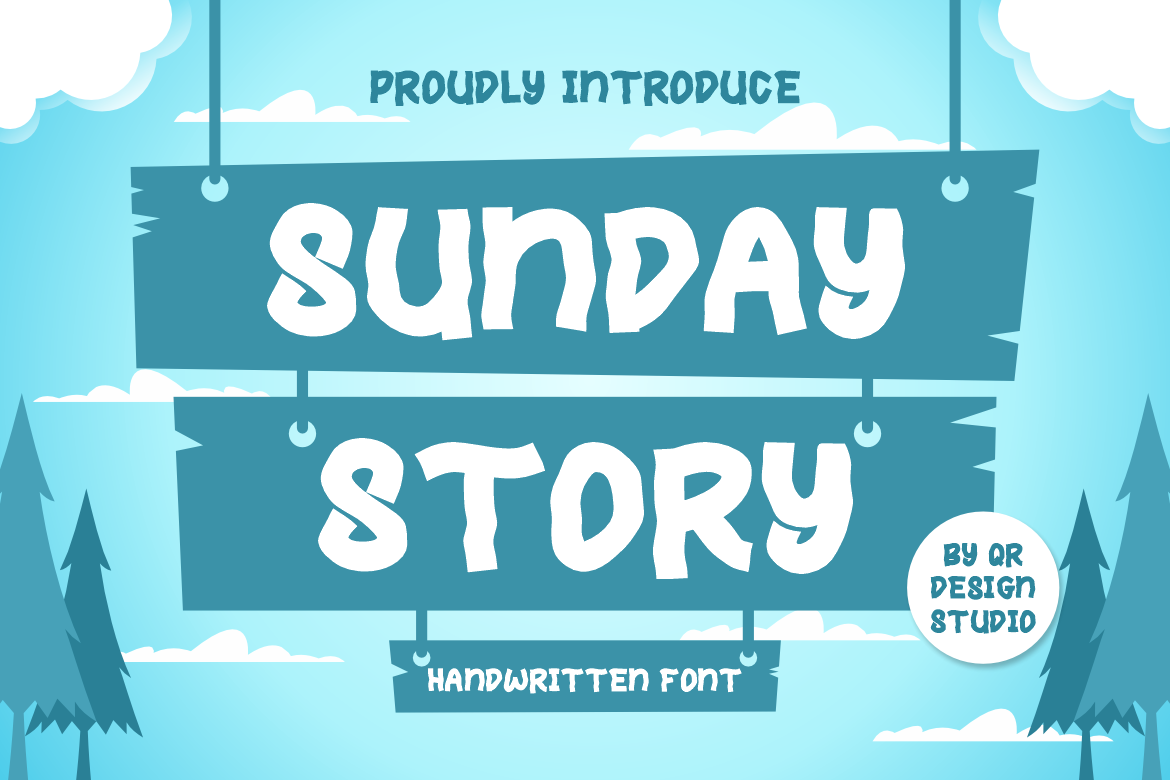
Sunday Story Font
Sunday Story is a bold and authentic display font. The font is suitable for any branding project like logo, cute, autumn, summer, kids, poster, thanksgiving and many more. Outstanding in a wide range of contexts.